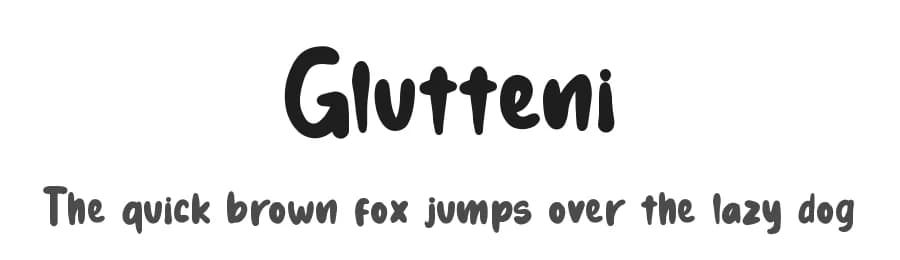
About Glutteni Font
Glutteni Specifications
| Designer | Dwi Krisdiantoro |
Glutteni Font is a script font that shines as a display or heading face. Pair it with a clean sans-serif or serif font for body text β the contrast creates a clear hierarchy while the two styles stay balanced and easy to read.
Glutteni Font